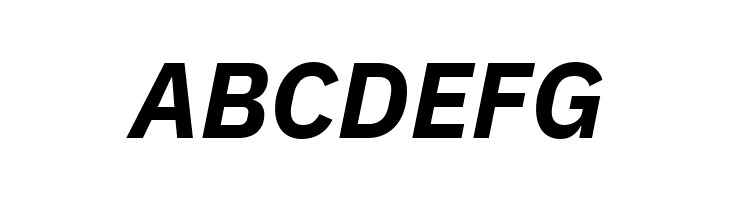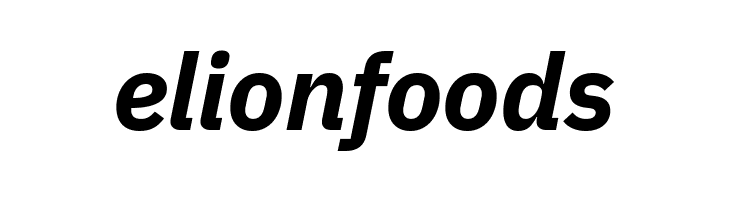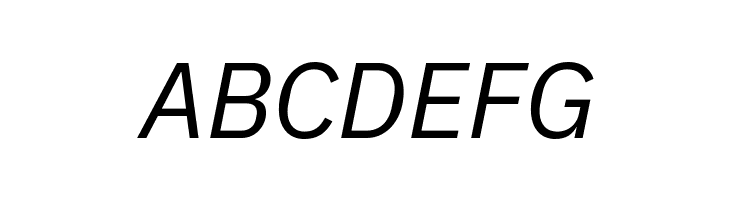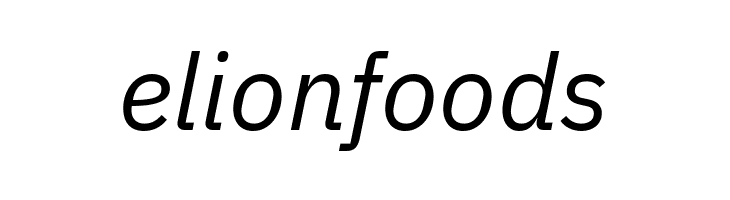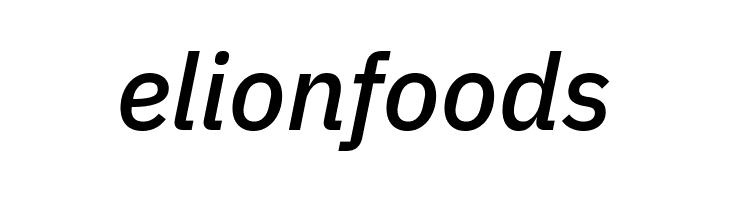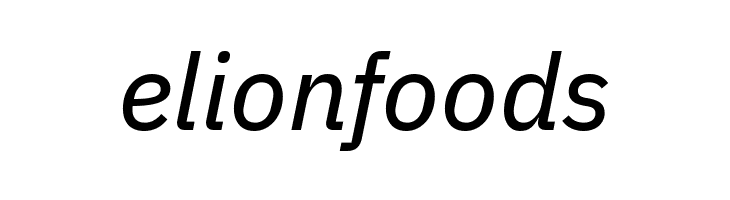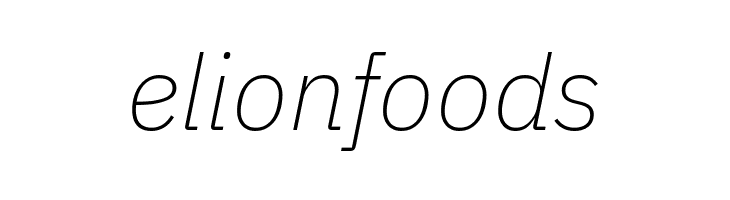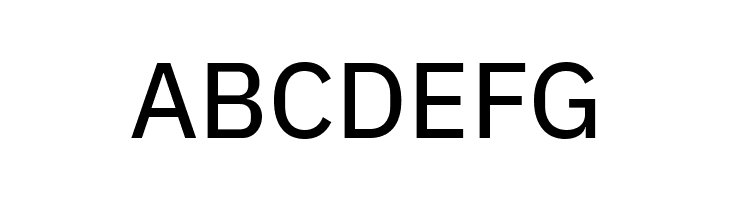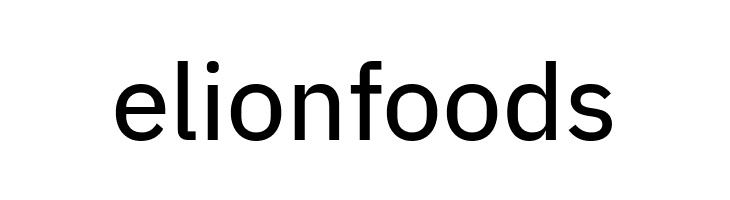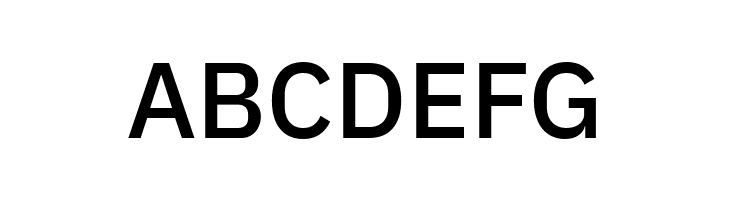
A bold, italic font with a modern and dynamic style.
A clean, minimalist extra-light font with consistent stroke width and modern appeal.
A sleek, extra-light italic font with a modern and elegant style.
A modern italic font with smooth curves and balanced proportions.
A modern, light sans-serif font with clean lines and balanced proportions.
A sleek, light, and italic sans-serif font with a modern aesthetic.
A clean, modern sans-serif font with balanced proportions and excellent readability.
A modern, italic font with clean lines and a dynamic style.
A clean, modern semi-bold typeface with excellent readability.
A modern, semi-bold italic font with medium contrast and dynamic style.